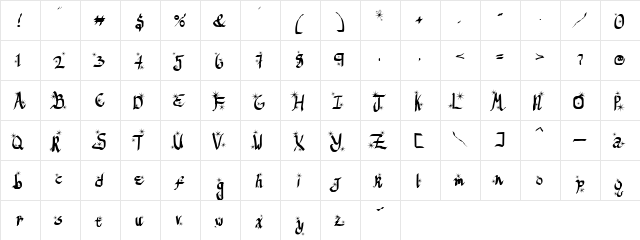
ReGifter Stars Regular
Design Context for ReGifter Stars Typeface
ReGifter Stars is a composed and adaptable typeface that performs quietly and consistently across a wide range of design contexts.
Pro Tip: Use ReGifter Stars in both headline and body roles to test its range before committing to a single application.